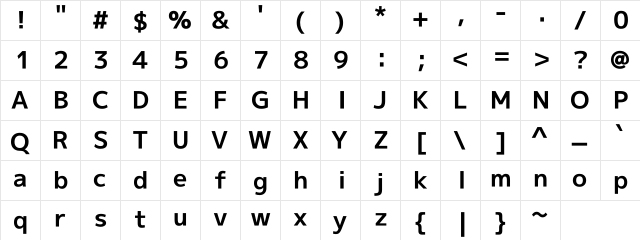
M+ 1p bold
Design Context for M+ 1p Typeface
M+ 1p offers clean, dependable letterforms without strong stylistic allegiance, making it a practical choice for designers who need flexibility. Its bold stroke weight gives it real presence on the page.
Pro Tip: Pair M+ 1p with a font of contrasting weight or personality to build a more expressive typographic hierarchy.